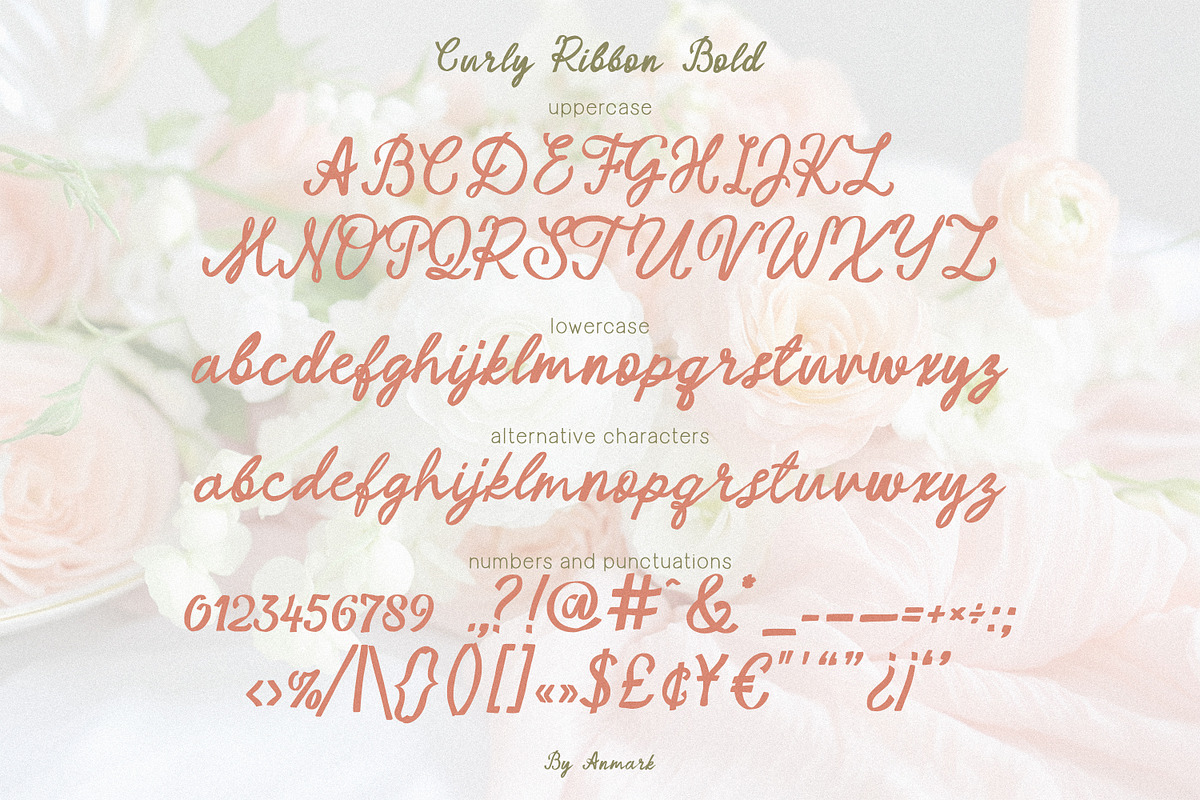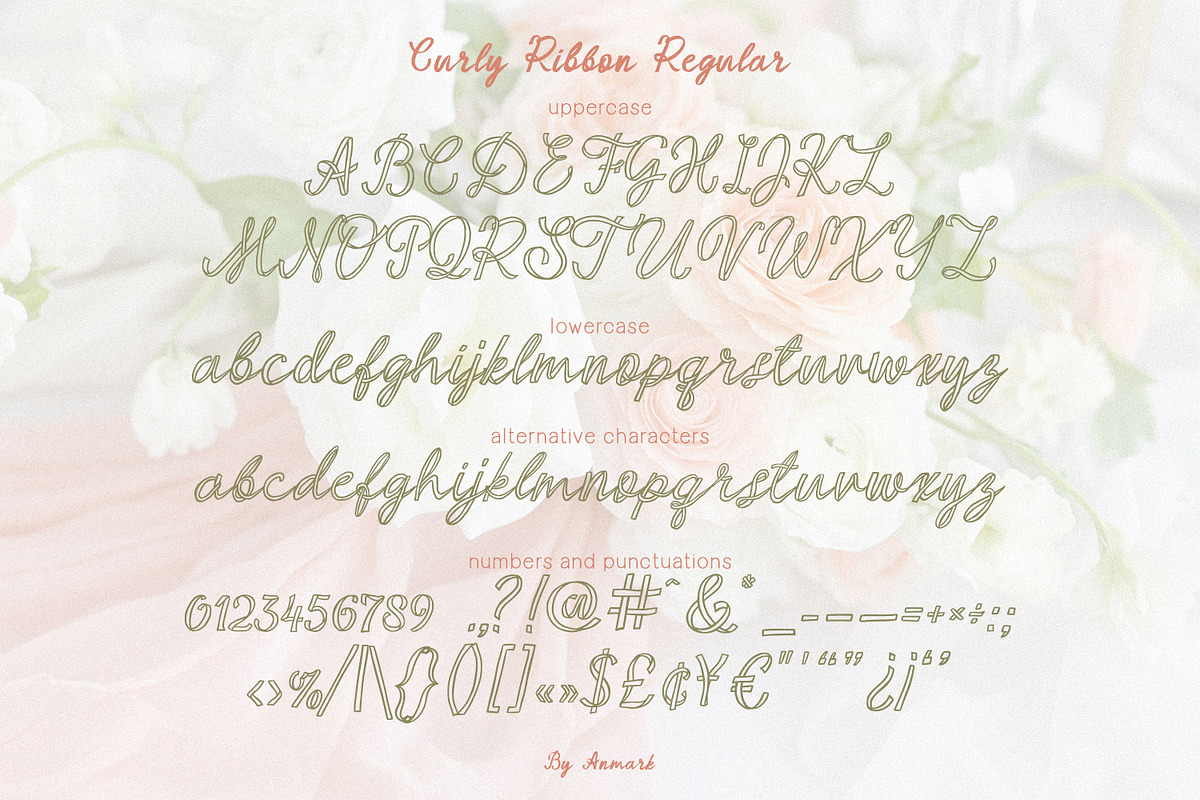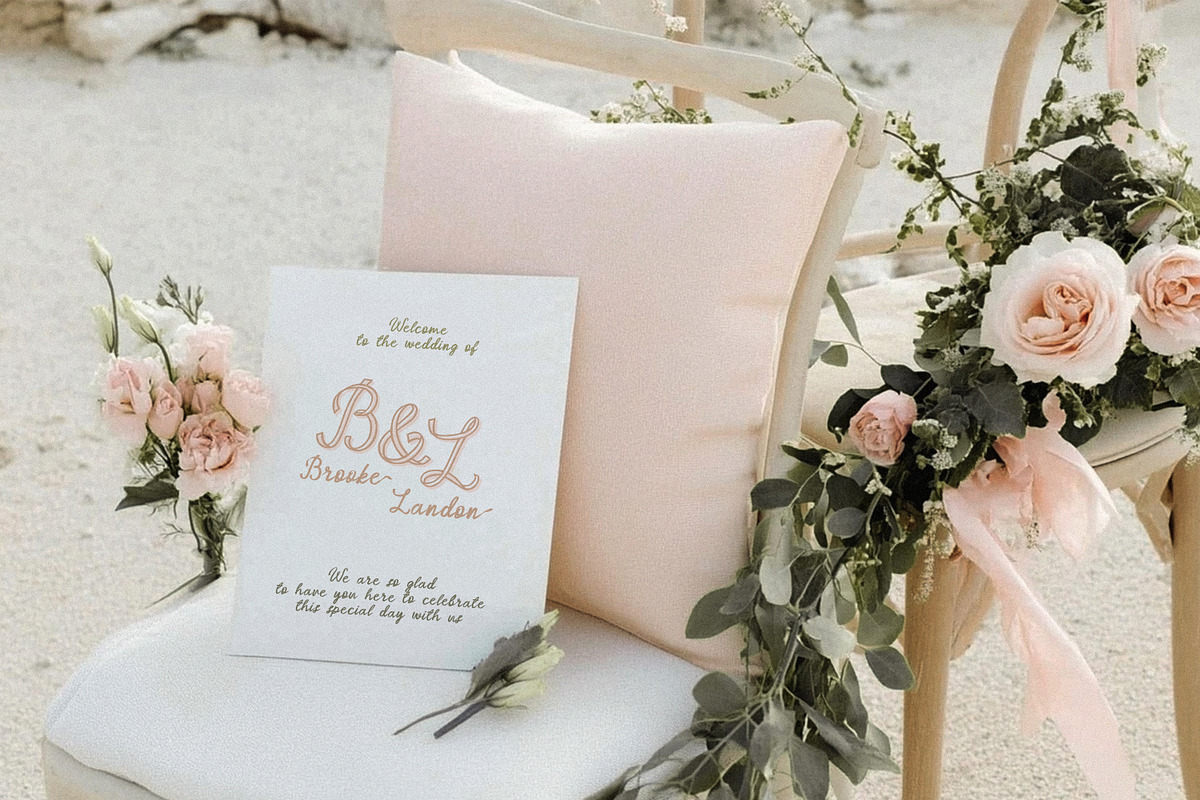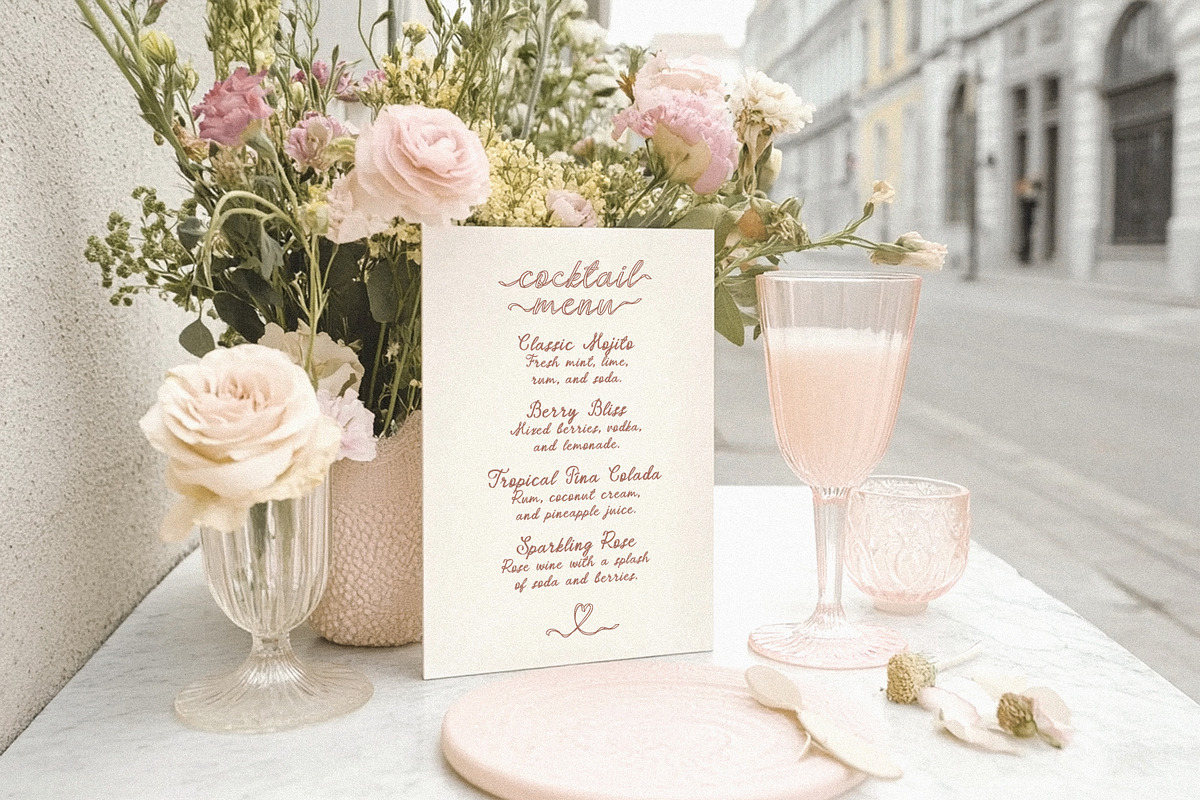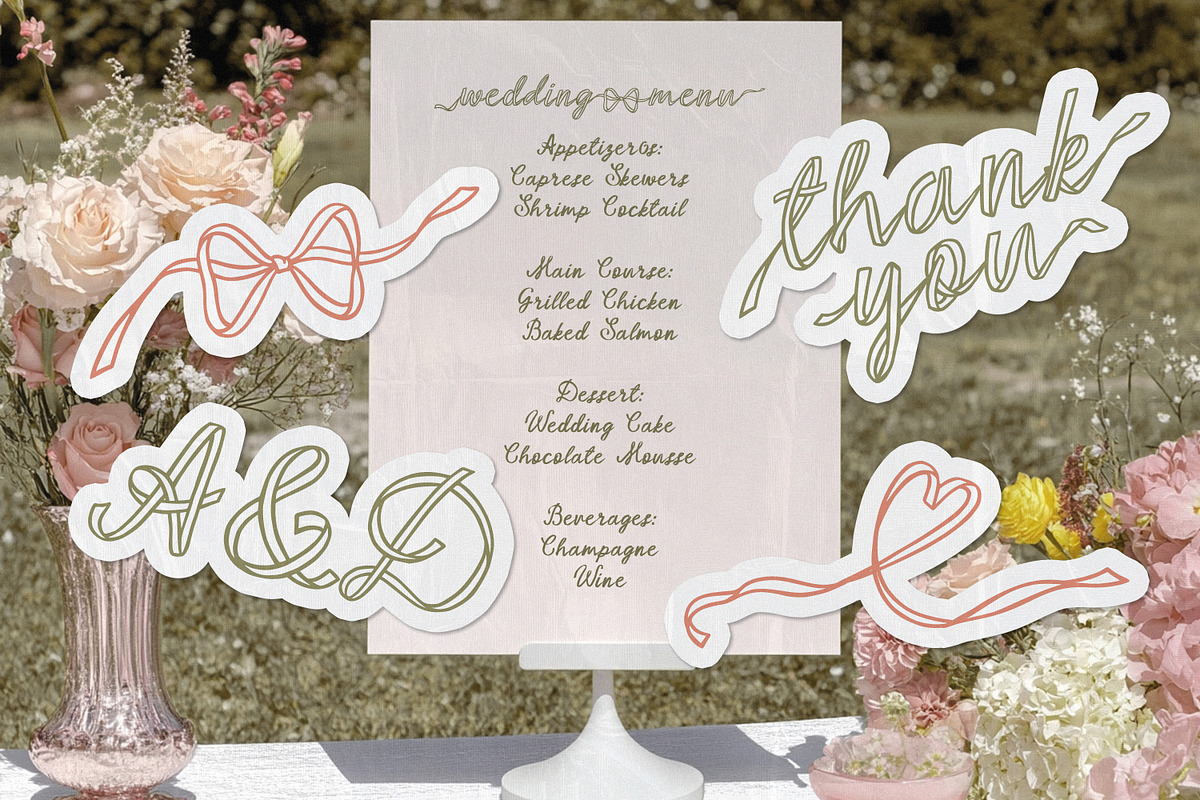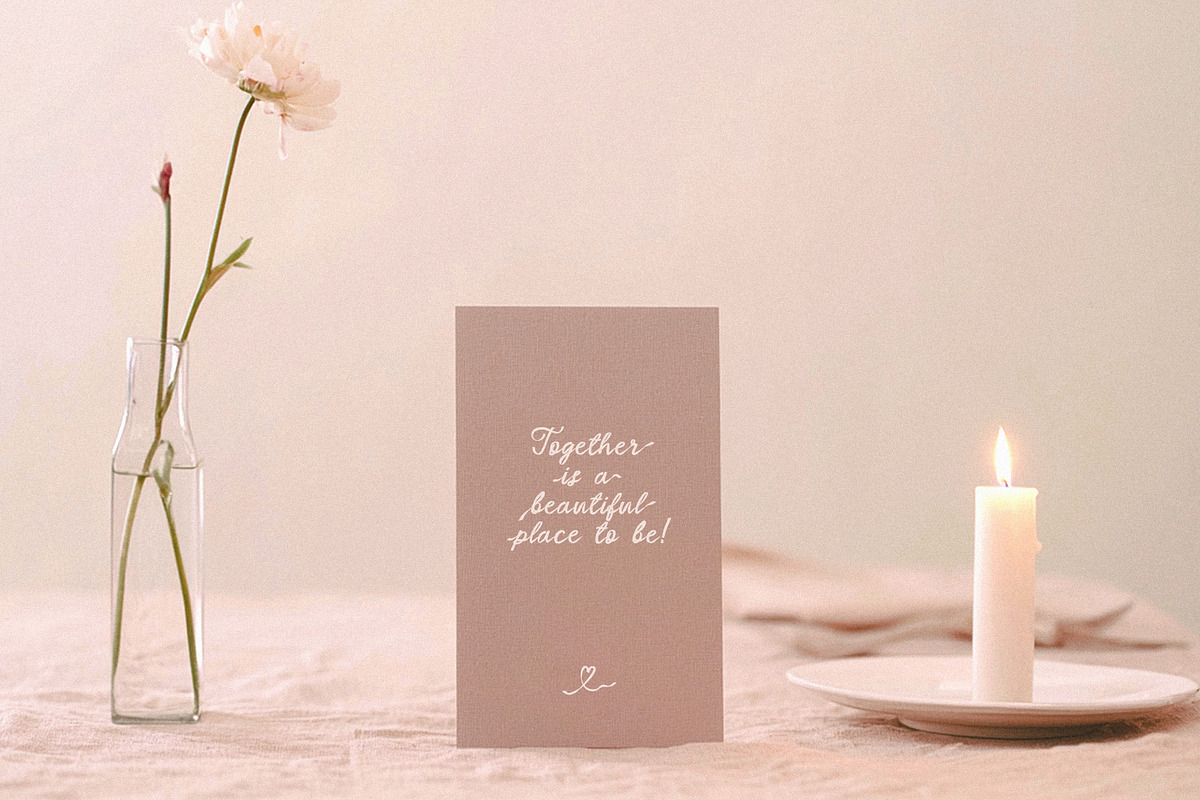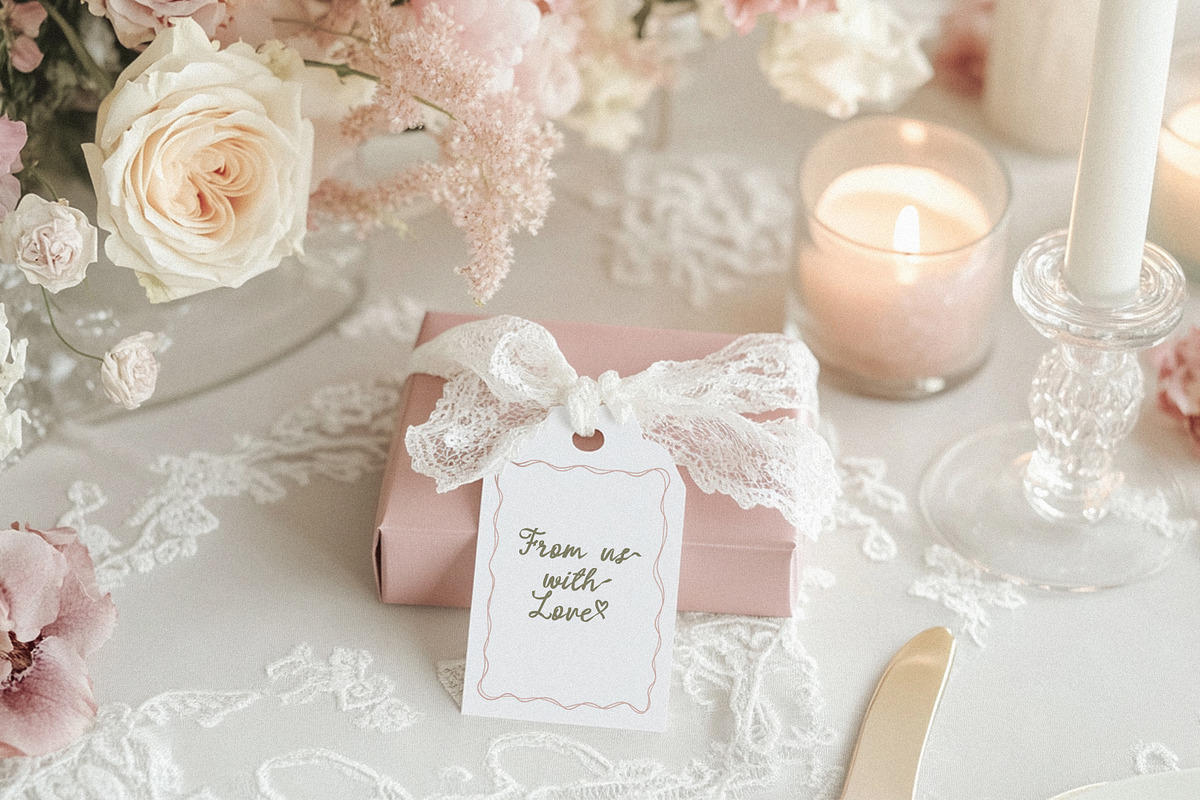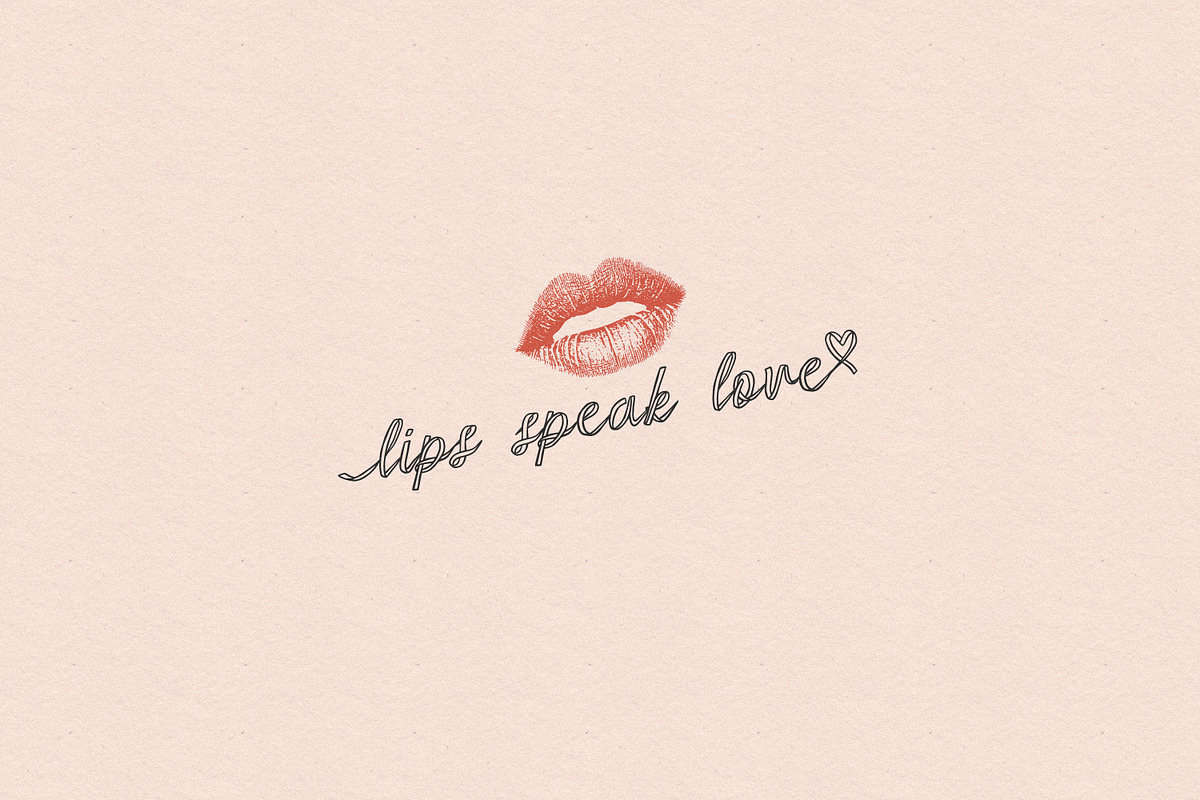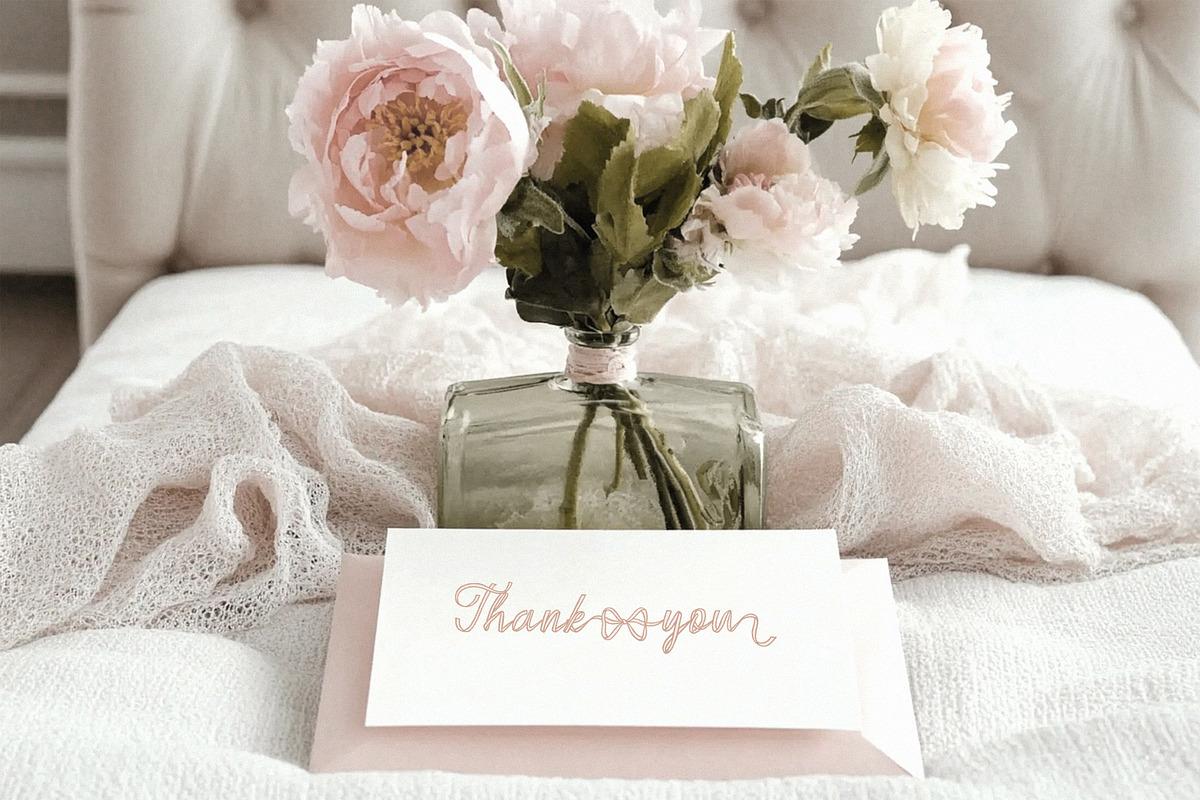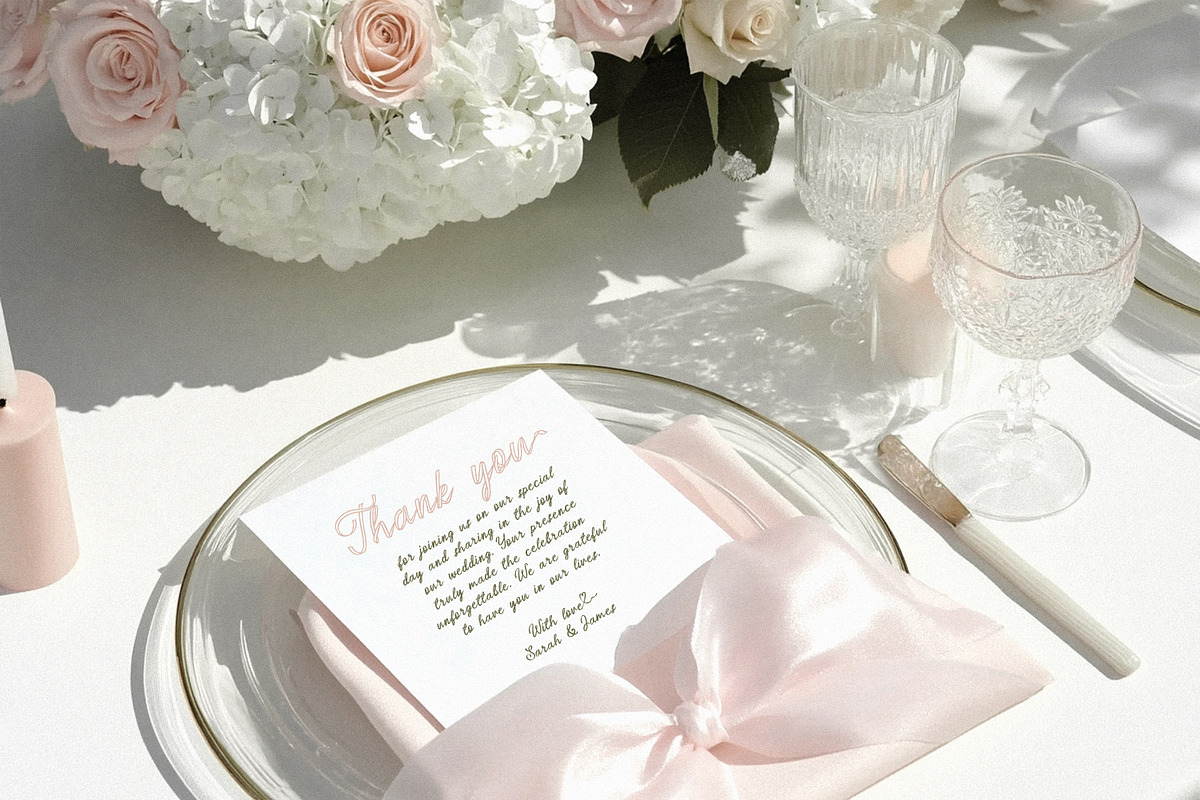
Curly Ribbon is a delightful font that beautifully mimics the appearance of ribbon writing, infusing your projects with a unique charm and creativity. With its two styles — regular and bold — it provides versatility, allowing you to emphasize important text elements effortlessly. The font features elegant ligatures that create smooth swashes, bows, hearts, enhancing its overall aesthetic and giving your designs a refined touch. Additionally, the lowercase letters include a complete set of alternates, offering even more creative options for customization.
Curly Ribbon is perfect for a variety of applications, including wedding invitations, menu, greeting card, branding, packaging, social media graphics, and any project where a warm and friendly vibe is desired. Its playful yet sophisticated nature makes it an excellent choice for creating memorable designs that resonate with your audience. Whether you're aiming for a whimsical look or an elegant feel, Curly Ribbon adds that special flair to elevate your creative endeavors.